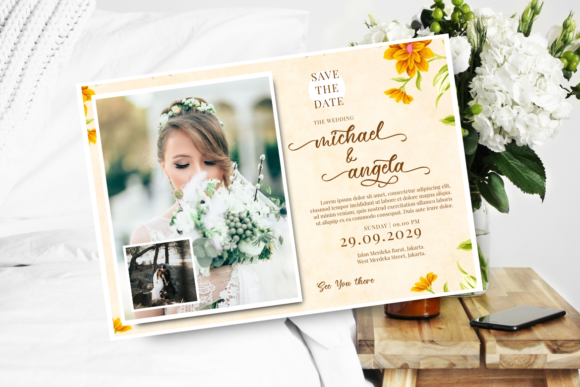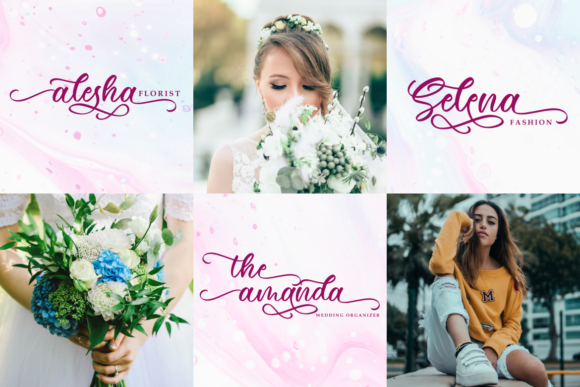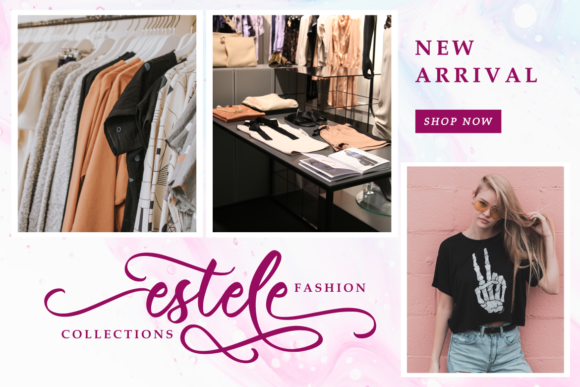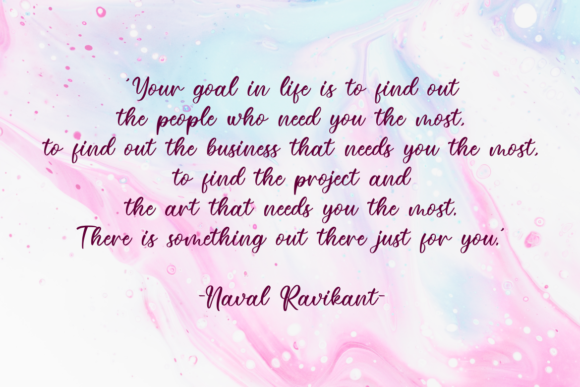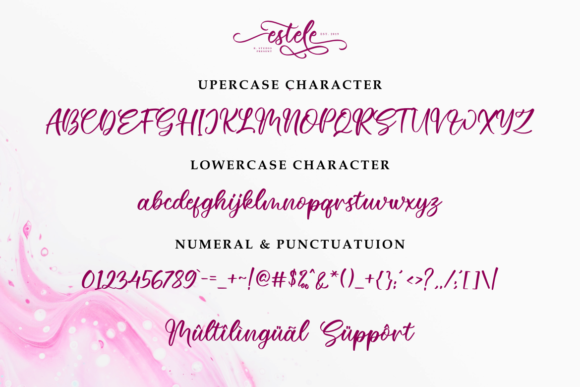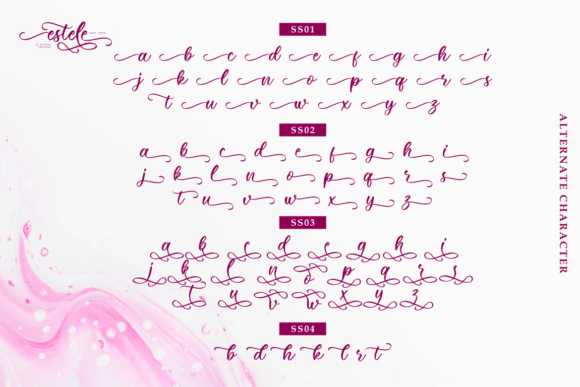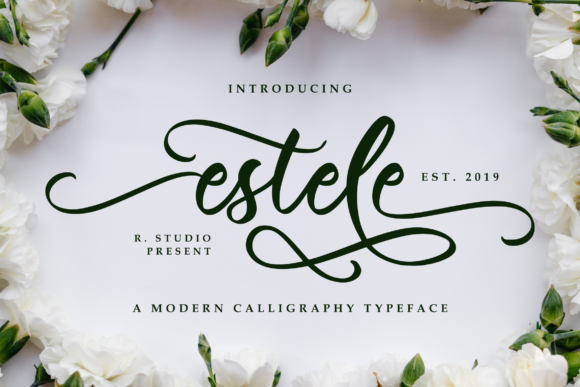
Introducing Estele Font: Elevate Your Design with Luxurious Flair
Estele is a stunning script font that embodies elegance and sophistication, making it the perfect addition to any design project. With its beautiful swashes and flowing curves, Estele Font is sure to add a touch of luxury to your creations. Whether you’re a designer, crafter, or DIY enthusiast, Estele Font is an excellent choice for those seeking to add a high-end feel to their work.
The Beauty of Estele Font
Estele Font boasts a range of beautiful swashes that can be used to add a decorative touch to your designs. These swashes can be used to create stunning headings, titles, and even quotes, making it an excellent choice for a variety of design projects. The font’s elegant and cursive script style ensures that your text will be transformed into a beautiful piece of art that exudes sophistication and refinement.
Key Features of Estele Font
• Luxurious Swashes: Estele Font features a range of beautiful swashes that can be used to add a decorative touch to your designs.
• Elegant Script Style: The font’s elegant and cursive script style ensures that your text will be transformed into a beautiful piece of art.
• High-End Feel: Estele Font is perfect for designers and crafters seeking to add a luxurious touch to their work.
• Versatile: Estele Font can be used for a variety of design projects, including headings, titles, quotes, and more.
Estele Font is an excellent choice for designers and crafters seeking to add a touch of elegance to their work. Whether you’re creating digital products, such as social media graphics and blog posts, or physical products, like invitations and stationery, Estele Font is sure to impress. The font’s luxurious feel makes it perfect for high-end branding, packaging, and advertising projects.
Tips for Using Estele Font
• Pair with Neutral Colors: Pair Estele Font with neutral colors, such as black, white, and gray, to create a sophisticated and elegant look.
• Experiment with Swashes: Experiment with Estele Font’s beautiful swashes to add a decorative touch to your designs.
• Use for Headings and Titles: Use Estele Font for headings and titles to add a touch of luxury to your designs.
• Mix with Other Fonts: Mix Estele Font with other fonts to create a unique and visually appealing design.
In conclusion, Estele Font is a stunning script font that features beautiful swashes and an elegant script style. With its luxurious feel and versatile nature, Estele Font is perfect for designers and crafters seeking to add a touch of elegance to their work. Whether you’re creating digital or physical products, Estele Font is sure to impress and elevate your design to the next level.